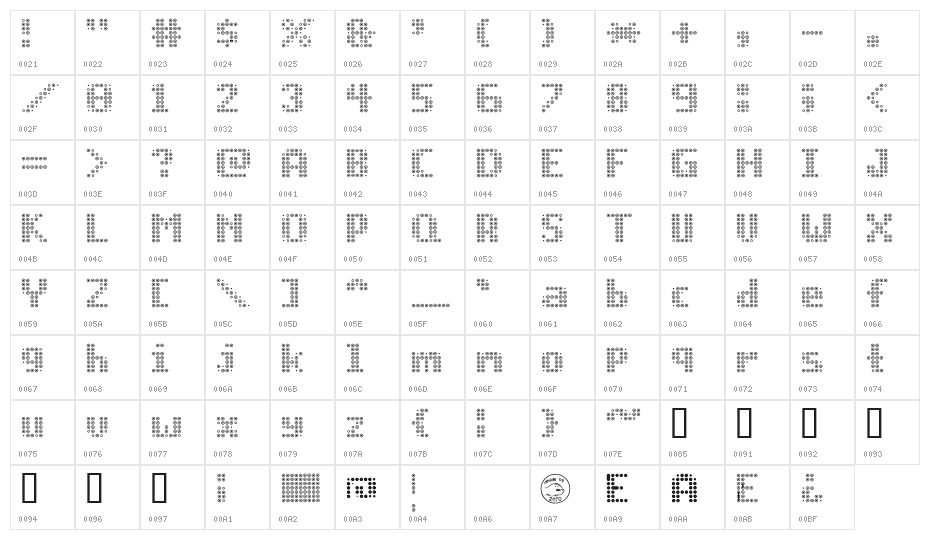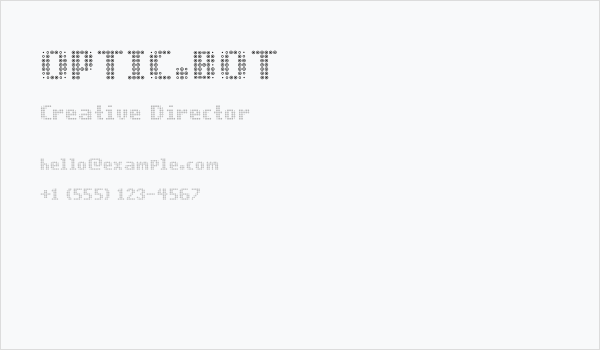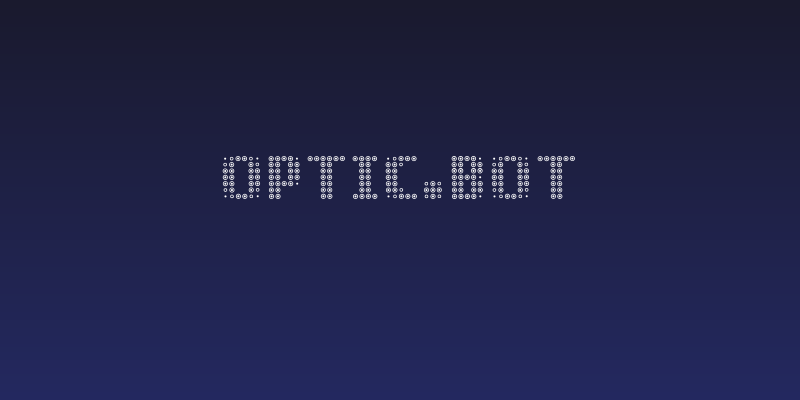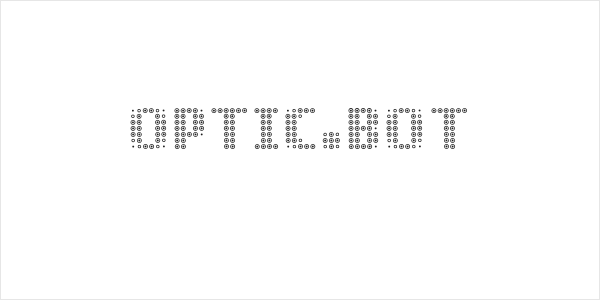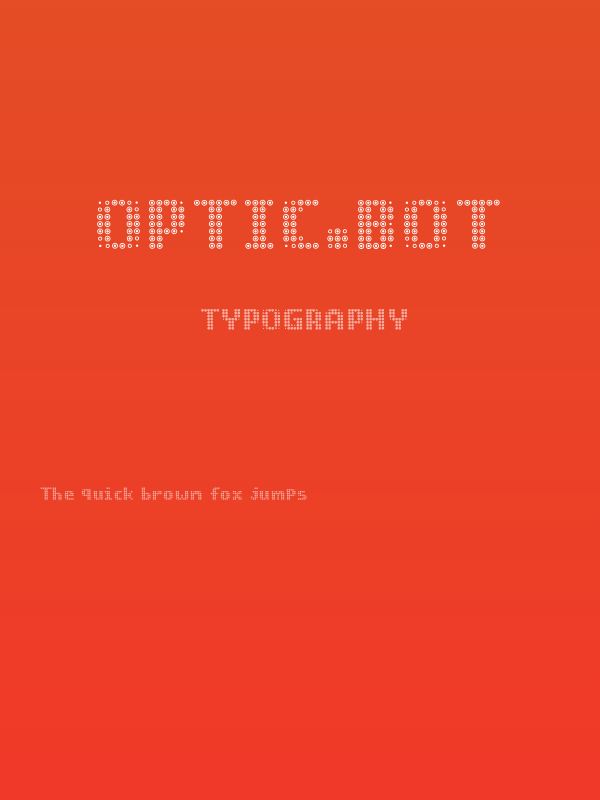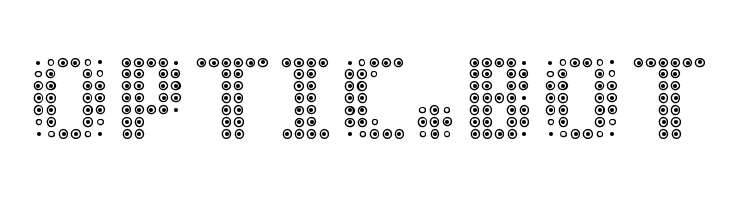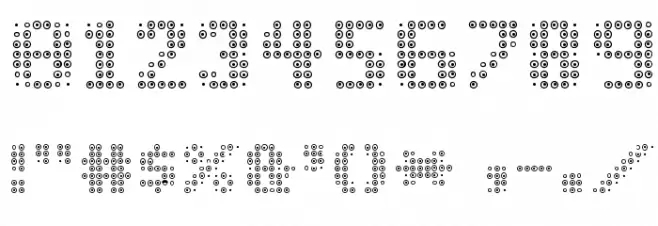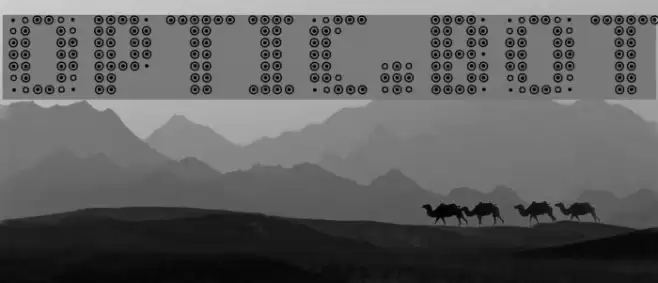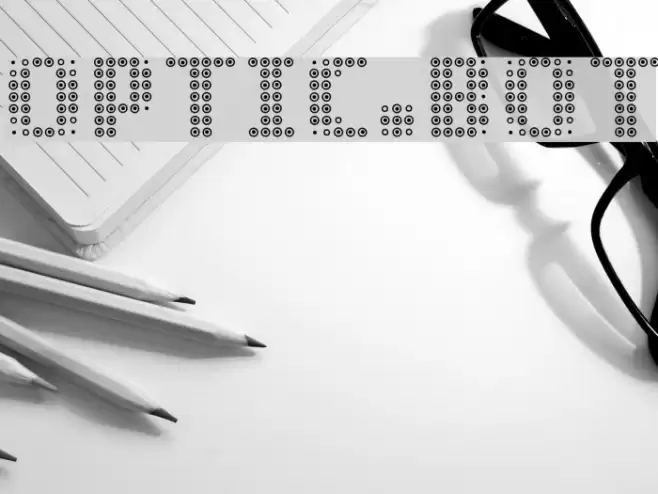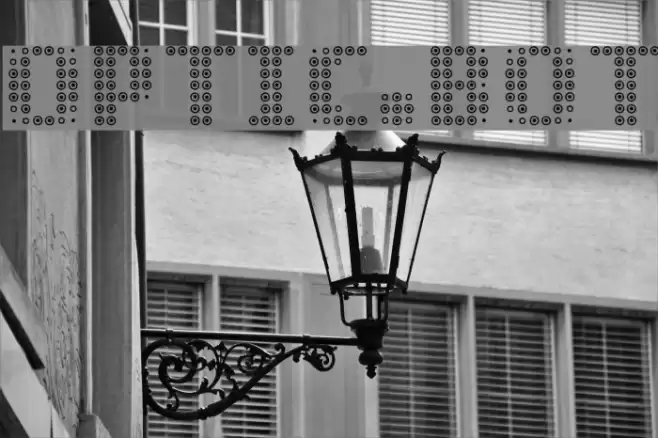
OPTIC.BOT Font
✎ Dotted
| 用途 | Logos, Posters, Digital Art |
| おすすめプロジェクト | Ideal for digital art projects, tech-themed designs, modern posters, or any creative work that requires a futuristic or playful touch. |